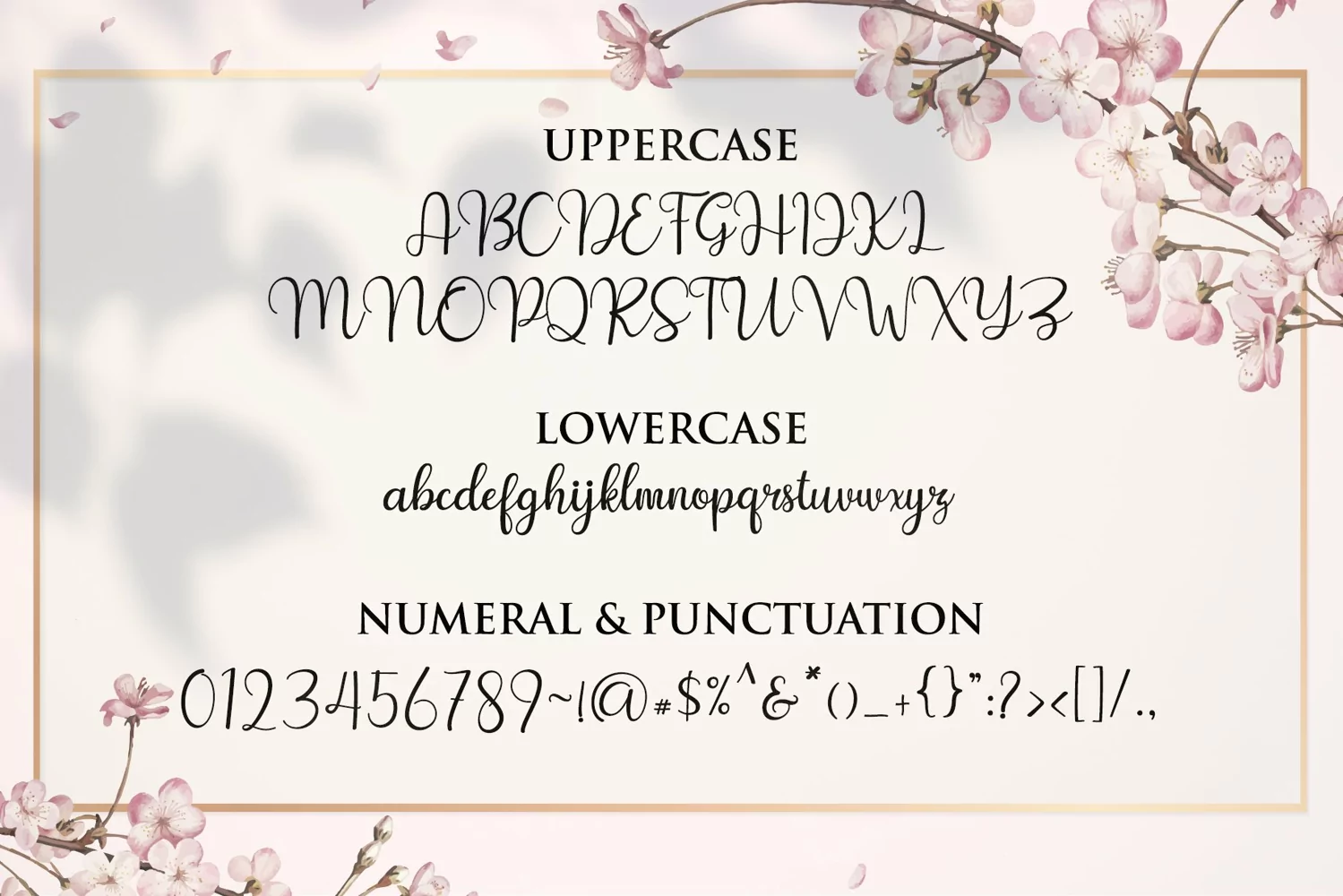
Helena Sweety
Helena Sweetyis a minimalist and beautiful script font. Its casual charm makes it appear wonderfully down-to-earth, readable and, ultimately, incredibly versatile.
Helena Sweetywill look outstanding in any context, whether it’s being used on busy backgrounds or as a standalone headline! This font will be great for any projects including: SVGs, Canva Templates, Sublimation Designs, Monogram SVG, Paper Cutting Templates, Embroidery Digital Designs,
Alternate Character
Multilingual Support